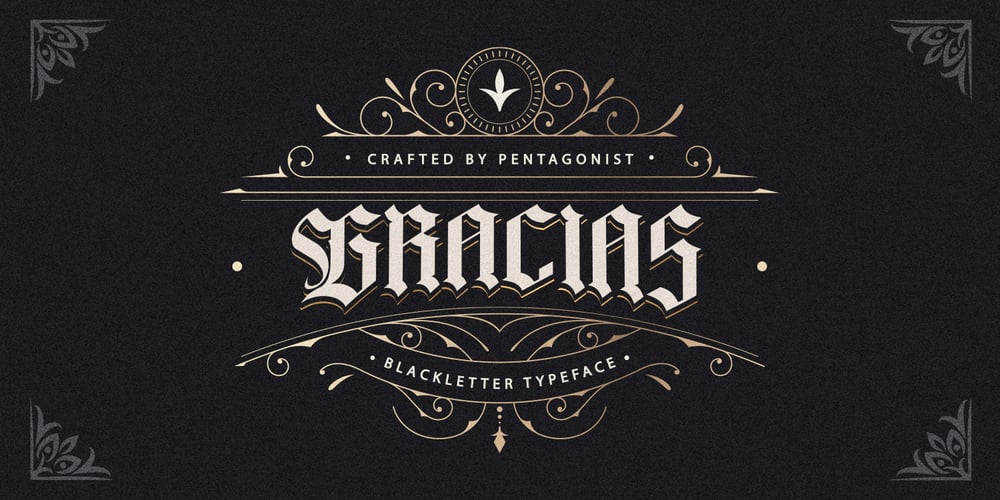
Gracias PS Font Family was designed by Burhan Adiatma and published by pentagonistudio. Gracias PS contains 1 styles and family package options. Gracias Is A Vintage Display Typeface Inspired By Blackletter Characters.SOFTWARE REQUIREMENTS :Fonts and alternate: No special software is required they may be used in any basic program /website app that allows standard fonts That’s it, folks! You can go ahead and get cracking :)Follow My Shop For Upcoming Updates Including Additional Glyphs And Language Support. And Please Message Me If You Want Your Language Included or If There Are Any Features or Glyph Requests, Feel Free to Send me A Message.Have a Good Day!